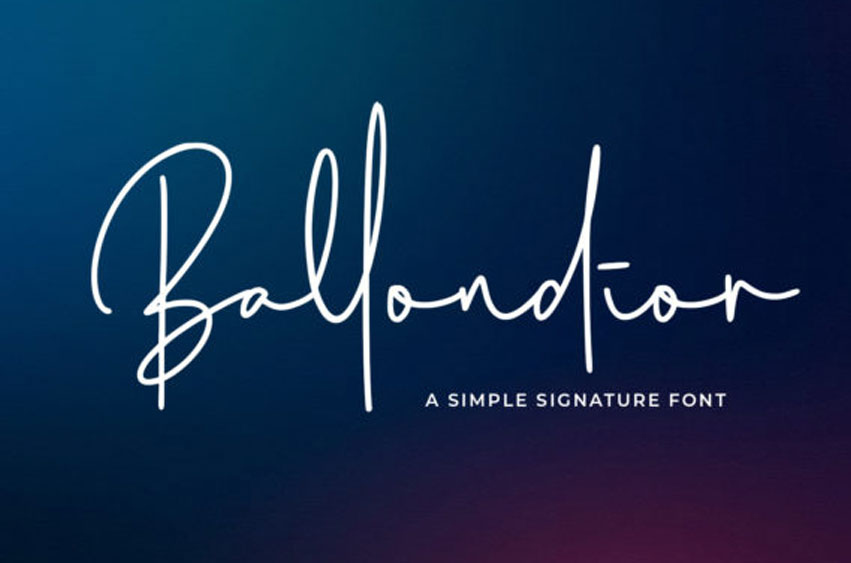
Ballondior Font
Ballondior Font is a thin lettered and fashionable script font.
Fall for its ravishing style and use it to create gorgeous wedding invitations, beautiful stationary art, eye-catching social media posts, and much more!